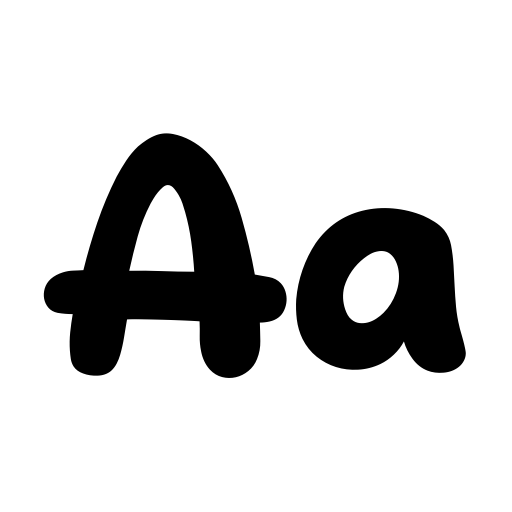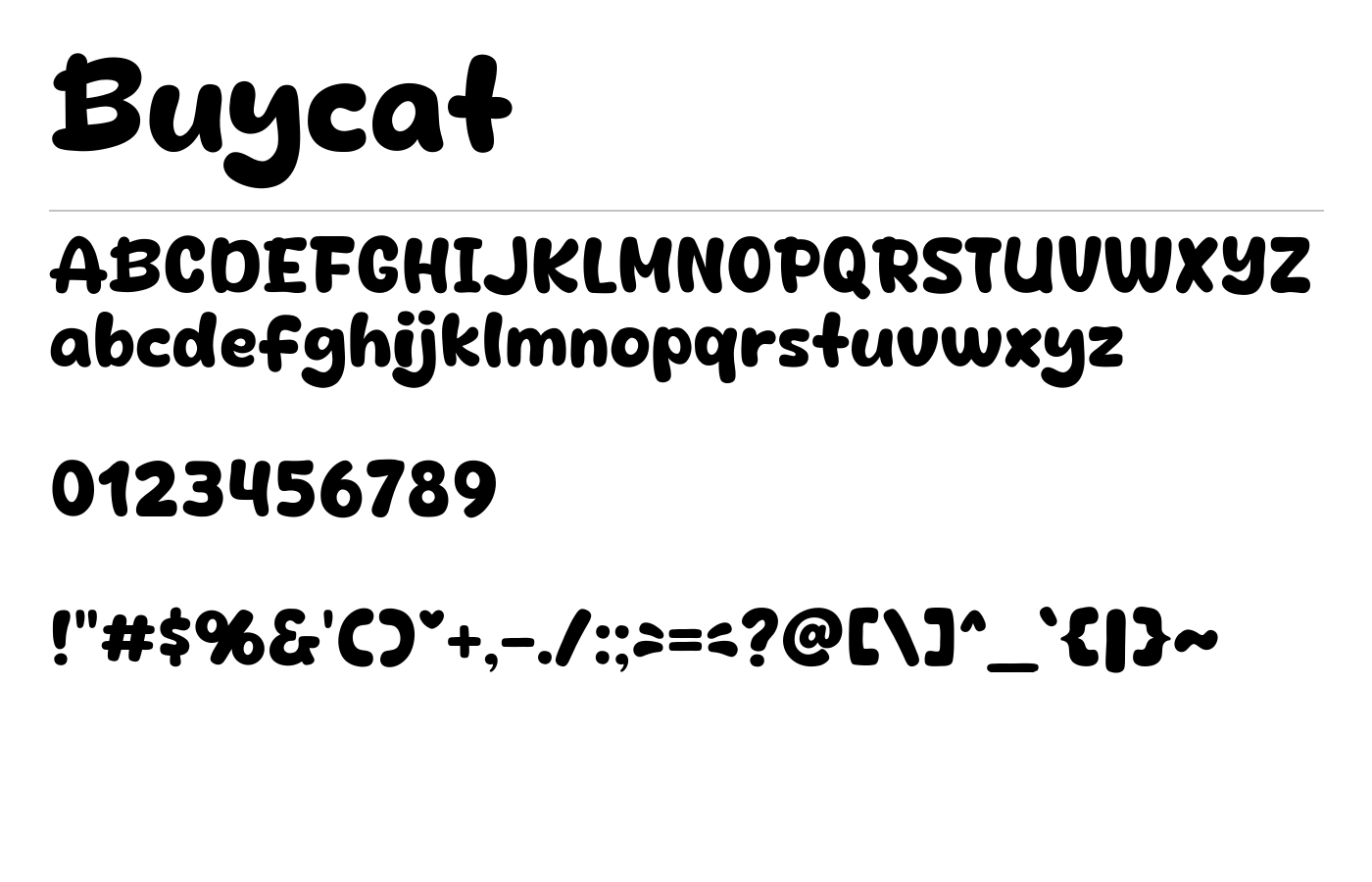
Buycat is a playful, rounded sans serif font with a bold weight and soft, friendly letterforms that give it a casual, approachable feel. Its uniform stroke width and slightly condensed proportions make it ideal for fun, youthful branding, children's content, and informal designs where a warm, inviting style is key. This font works well for logos, headlines, and packaging that aim to convey cheerfulness and lightheartedness.
Buycat Font
About Buycat Font
| Font family | Buycat Font |